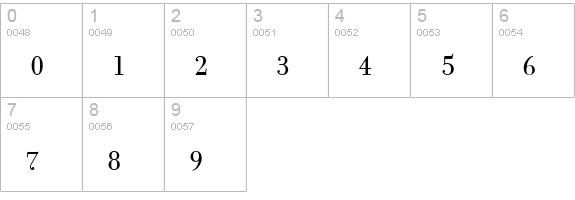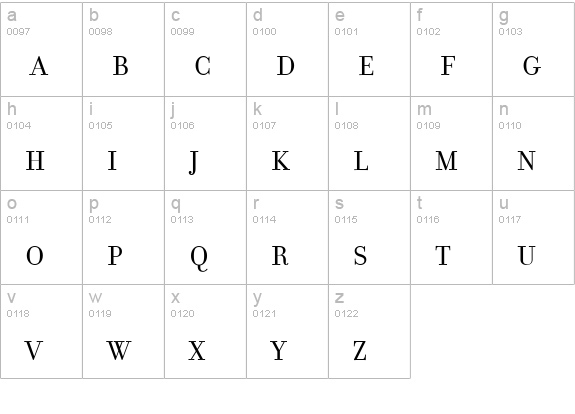
FilosofiaGrandCaps Font Details
FilosofiaGrandCaps font is a stunning display typeface that exudes elegance and sophistication. With its grand and ornate uppercase letters, this font is perfect for creating eye-catching headlines, titles, and logos. The intricate details and classical design of FilosofiaGrandCaps make it a timeless choice for projects that require a touch of luxury and refinement. One of the best features of FilosofiaGrandCaps font is that it is available for free download at FontsMarket.com. This means that you can easily add this exquisite font to your collection without any cost. Whether you are a designer looking to elevate your projects with a touch of grandeur or a typographer seeking a unique and beautiful typeface, FilosofiaGrandCaps is sure to impress. Download it today and unleash the beauty of this font in your designs.